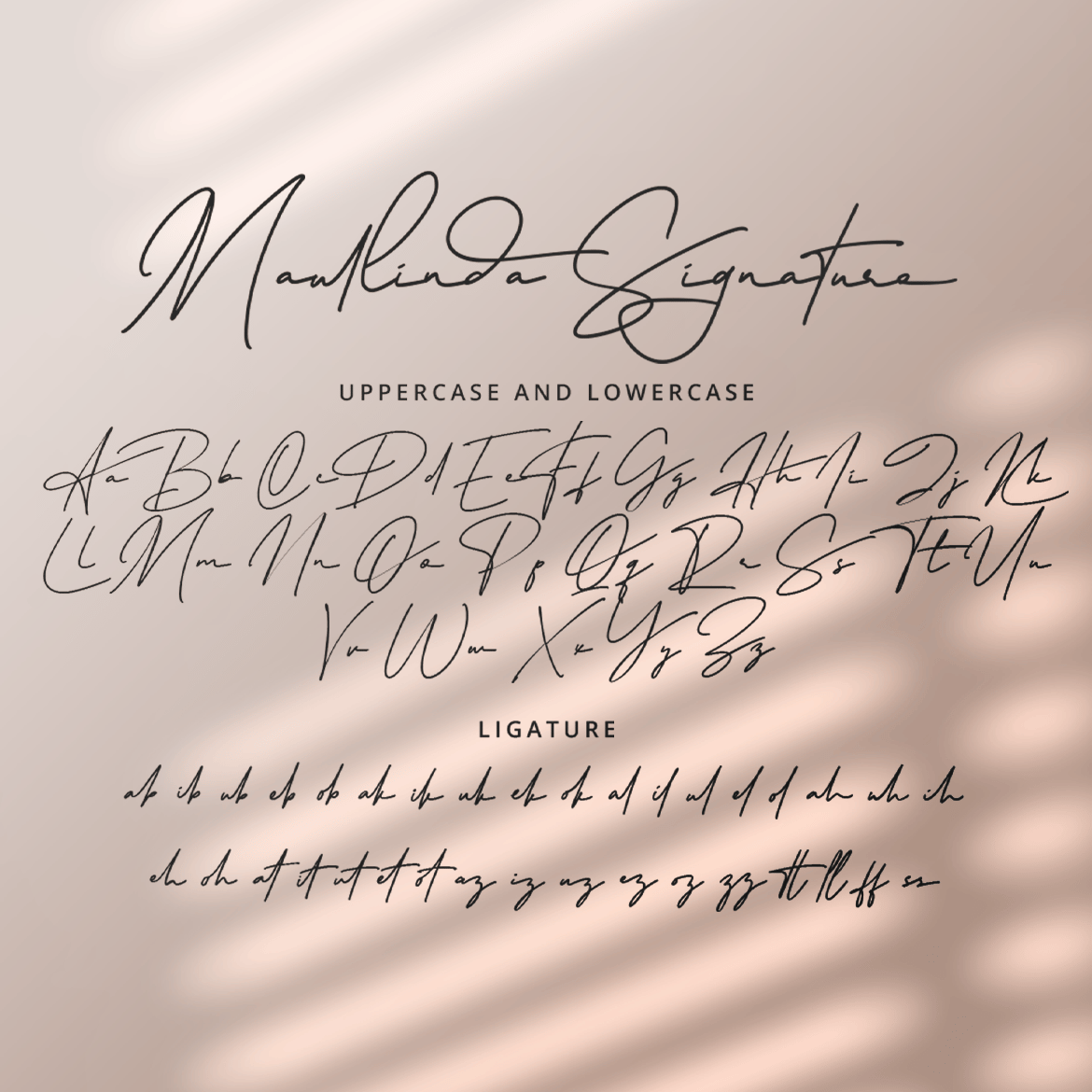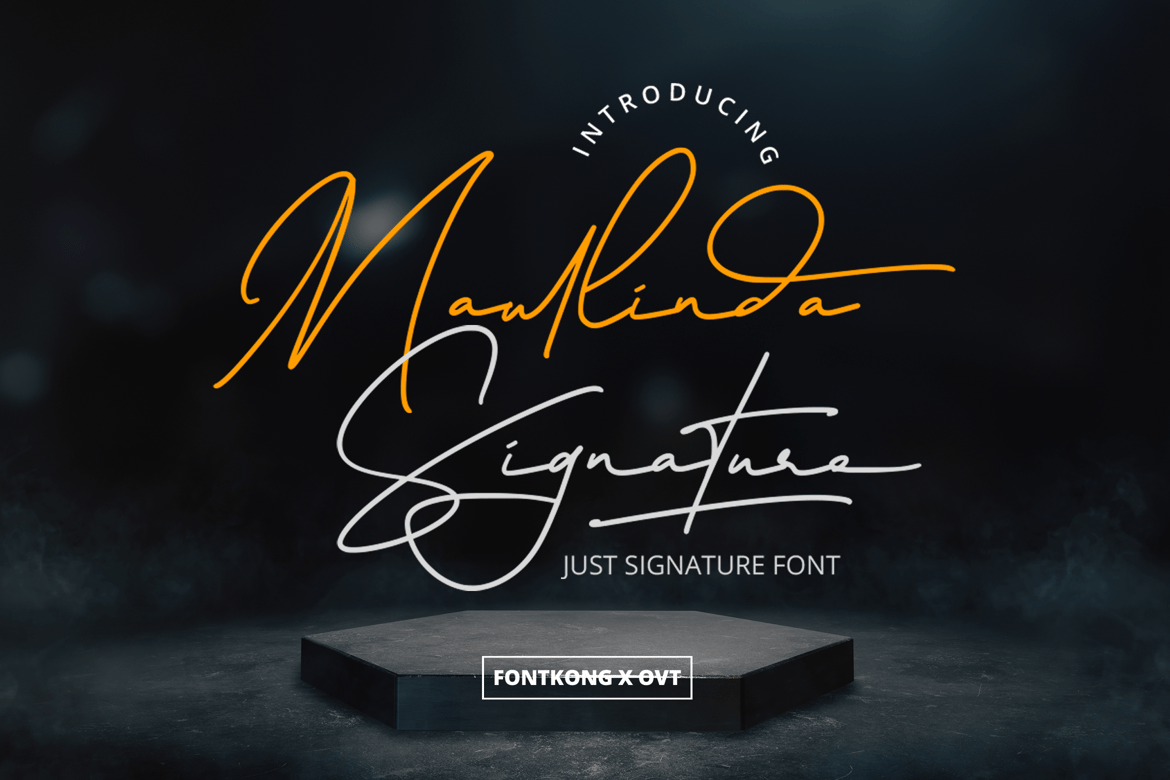
Maullinda Signature – Sophisticated Signature Font
Elevate your design projects with Maullinda Signature, a font that embodies the perfect blend of personal charm and sophistication. Its unique style and adaptability make it an essential addition to any designer’s toolkit for creating refined and captivating visuals. Enhance your work with Maullinda Signature and experience the allure of luxurious handwritten typography.